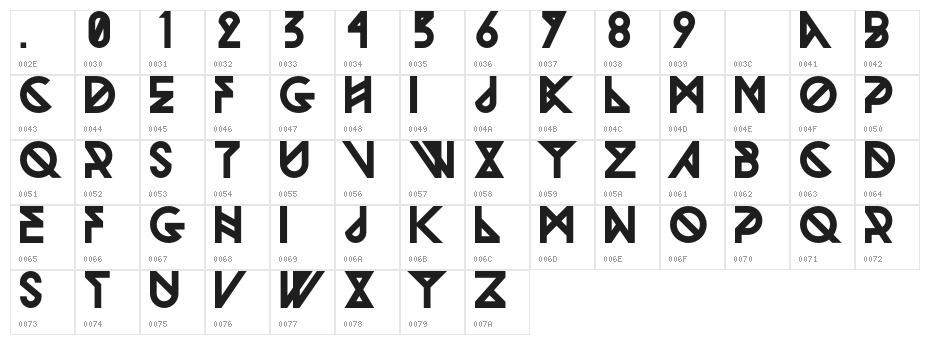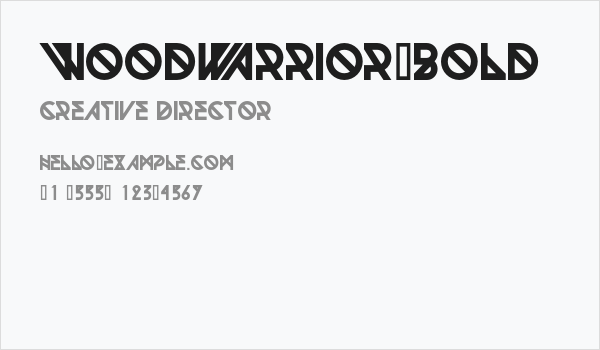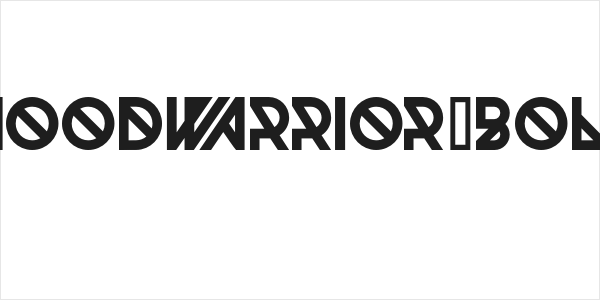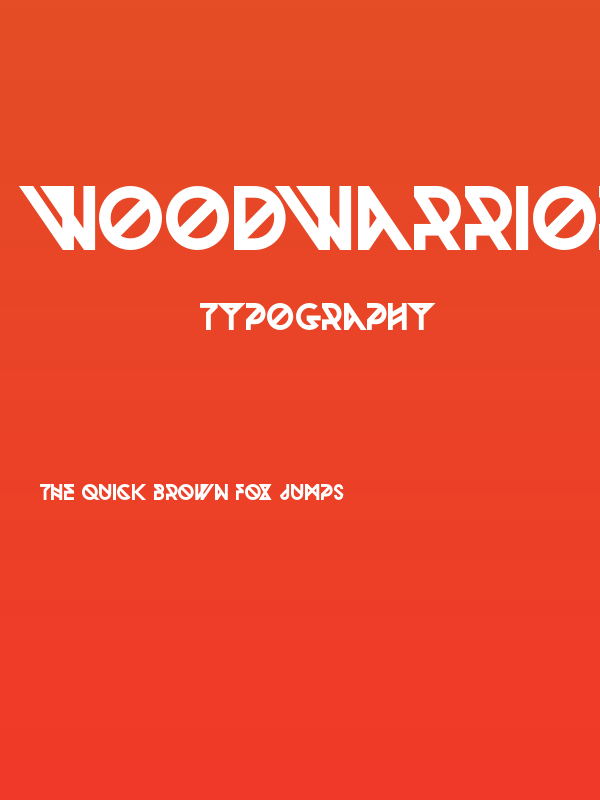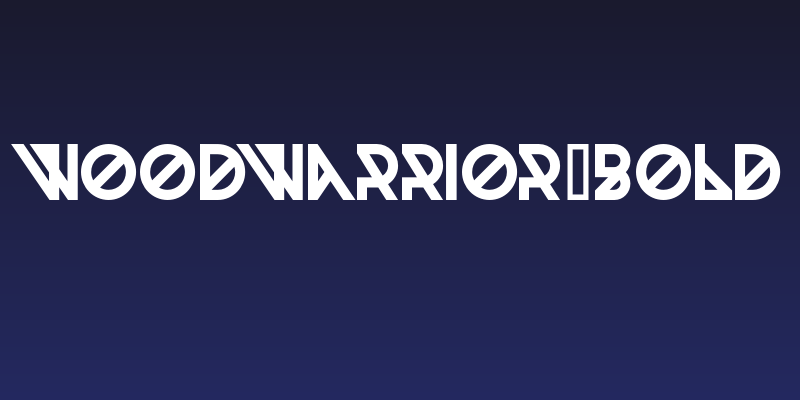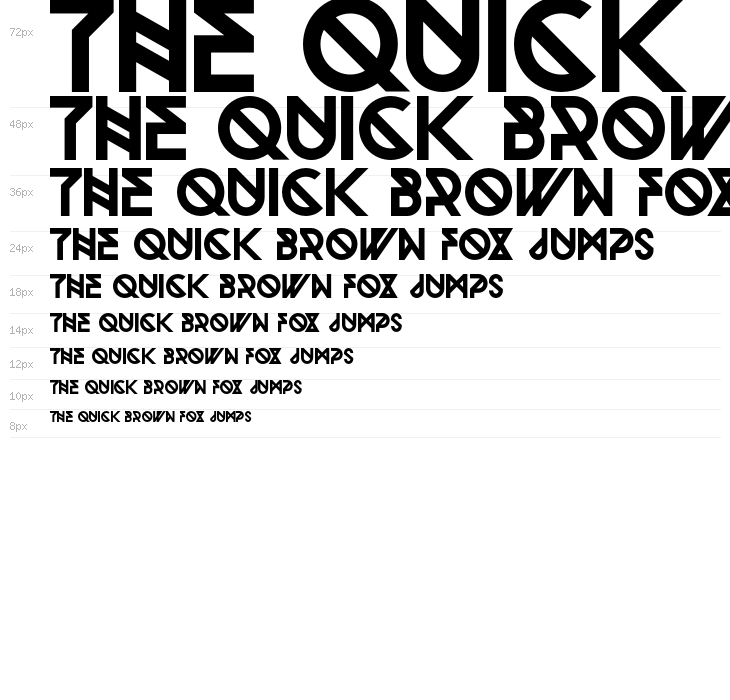
Woodwarrior-Bold Font
Woodwarrior-Bold Description
This font features a bold and geometric design, characterized by sharp angles and strong lines. The uppercase and lowercase letters maintain a consistent style, emphasizing a modern and futuristic aesthetic. The numerals are equally bold, with a distinct angularity that complements the overall design. Special characters are crafted with the same attention to detail, ensuring a cohesive look throughout. The font's unique style makes it stand out, suitable for projects that require a strong visual impact.
| Proposed Projects | Ideal for branding, posters, headlines, and any design project that requires a bold and modern look. |